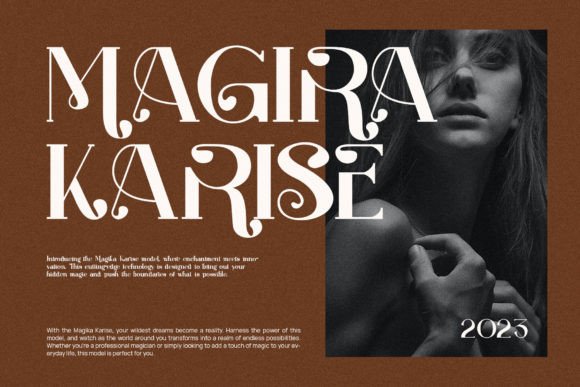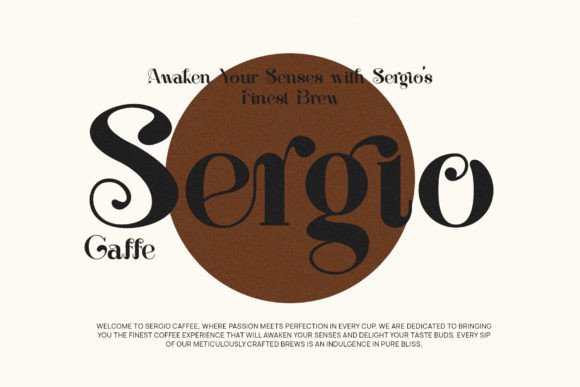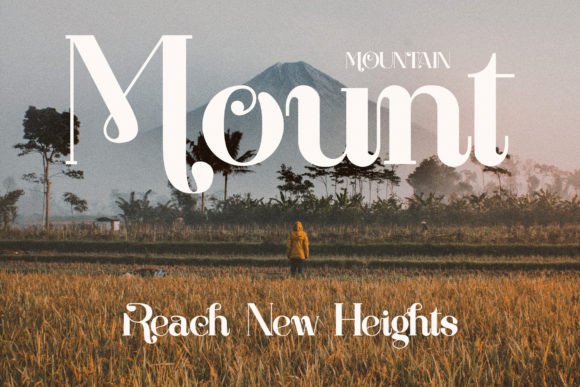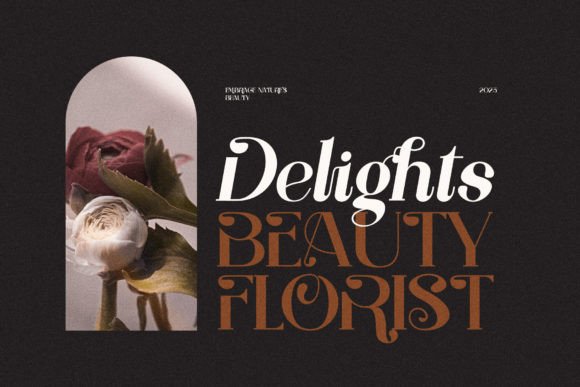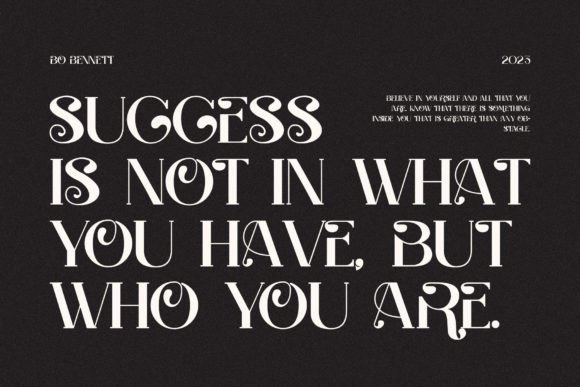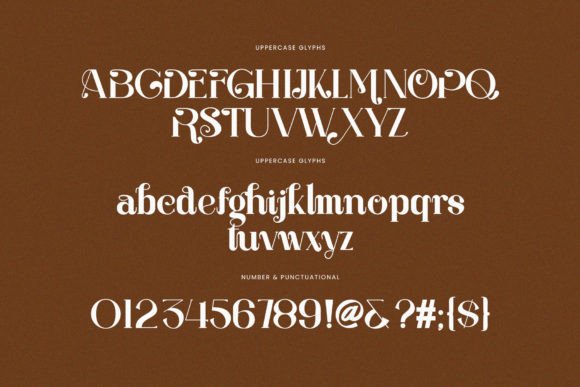
Introducing Fatina Font: Elevate Your Typography with Timeless Elegance
In the world of typography, a well-chosen font can make all the difference in conveying sophistication, elegance, and refinement. For designers and crafters seeking to add a touch of luxury to their projects, Fatina Font is an exceptional choice. This elegant serif typeface is designed to bring a sense of timelessness and classic charm to any text, making it perfect for a wide range of creative endeavors.
The Characteristics of Fatina Font
Fatina Font boasts a range of characteristics that set it apart from other typefaces. Its graceful curves and classic details evoke a sense of nostalgia and sophistication, while its simple yet stylish demeanor ensures that it remains versatile and easy to read. Whether you’re working on invitations, branding, or other creative projects, Fatina Font is the perfect choice for adding a touch of refinement to your typography.
What Makes Fatina Font So Special?
One of the standout features of Fatina Font is its PUA (Private Use Area) encoding. This means that users can access all of the amazing glyphs and ligatures with ease, allowing for endless creative possibilities. With Fatina Font, you can effortlessly add a touch of elegance to your projects, creating a polished and refined visual impact that will leave a lasting impression.
Use Cases for Fatina Font
Fatina Font is an incredibly versatile typeface that can be used in a wide range of creative projects. Some of the most popular use cases include:
- Invitations: Whether you’re planning a wedding, birthday party, or other special occasion, Fatina Font is the perfect choice for creating elegant and sophisticated invitations.
- Branding: For businesses seeking to establish a luxurious and refined brand identity, Fatina Font is an excellent choice. Its classic design and timeless elegance make it perfect for use in logos, marketing materials, and other brand collateral.
- Stationery: Add a touch of sophistication to your stationery with Fatina Font. Its elegant design makes it perfect for use in letterheads, business cards, and other written correspondence.
- Packaging: For crafters and small business owners seeking to create luxurious and eye-catching packaging, Fatina Font is an excellent choice.
Tips for Getting the Most Out of Fatina Font
To get the most out of Fatina Font, here are a few tips to keep in mind:
- Experiment with different sizes: Fatina Font looks great in a range of sizes, from large headings to smaller body text. Experiment with different sizes to find the perfect fit for your project.
- Play with glyphs and ligatures: With its PUA encoding, Fatina Font offers a range of glyphs and ligatures to explore. Take some time to experiment with these special characters to add an extra touch of elegance to your typography.
- Pair with complementary fonts: For maximum impact, try pairing Fatina Font with complementary fonts that share similar design elements. This will create a cohesive and harmonious visual identity for your project.
In conclusion, Fatina Font is an exceptional choice for designers and crafters seeking to add a touch of elegance and sophistication to their projects. Its timeless design, classic details, and simple yet stylish demeanor make it perfect for a wide range of creative endeavors. With its PUA encoding and range of glyphs and ligatures, Fatina Font offers endless creative possibilities. Whether you’re working on invitations, branding, or other creative projects, Fatina Font is the perfect choice for elevating your typography and creating a polished and refined visual impact.